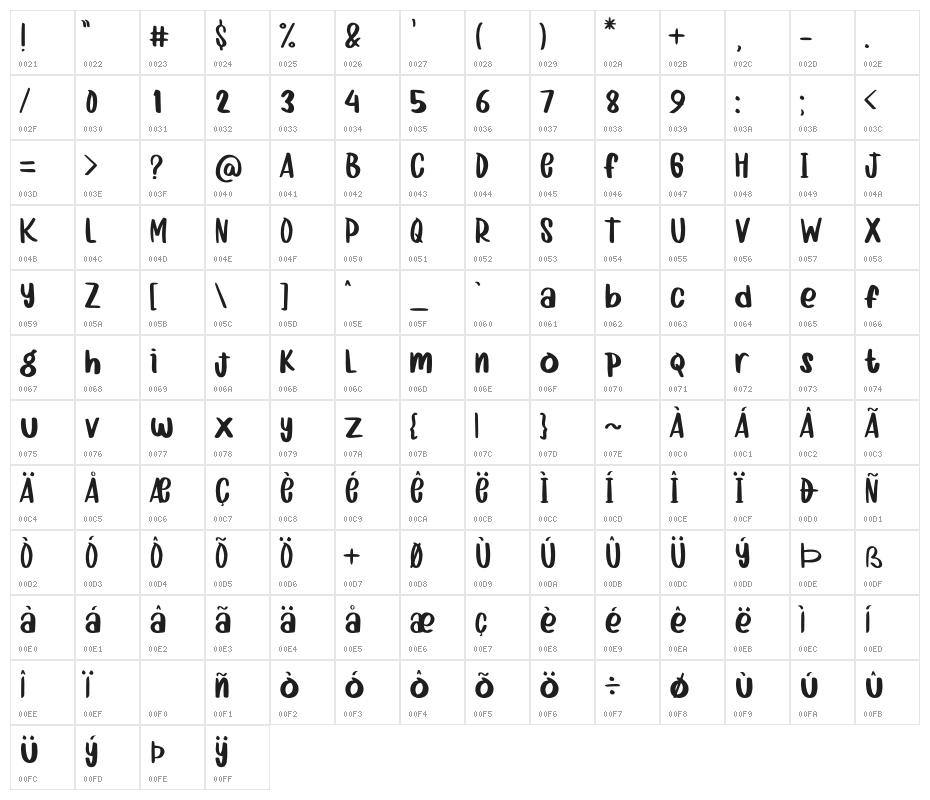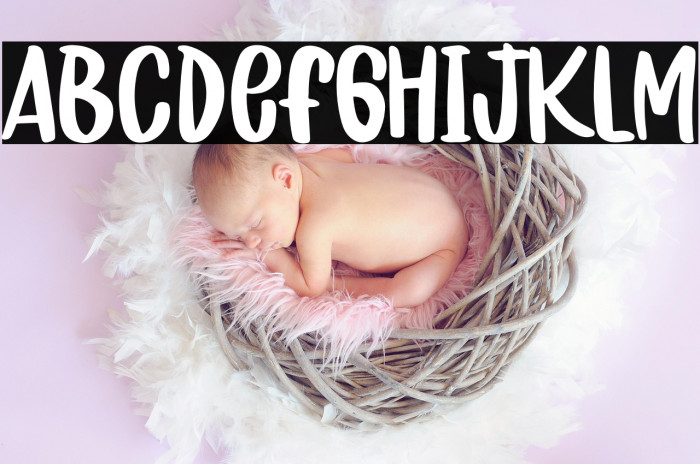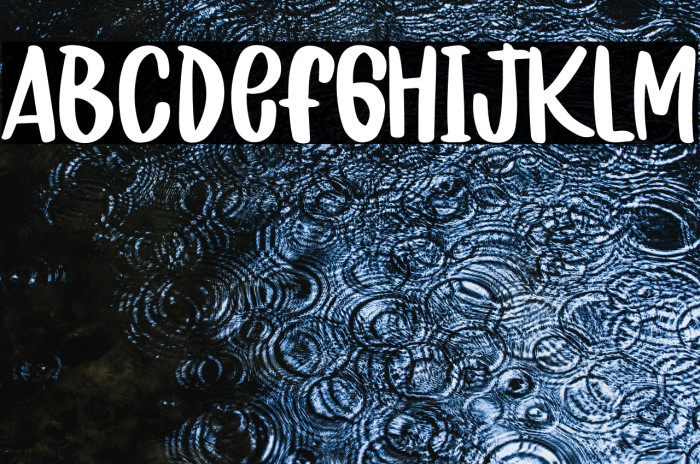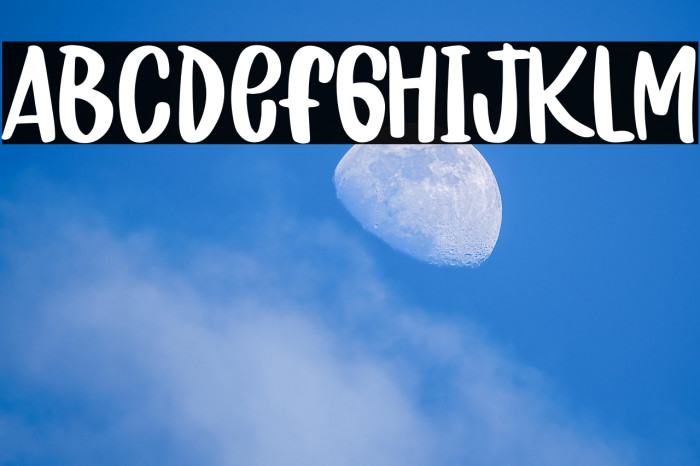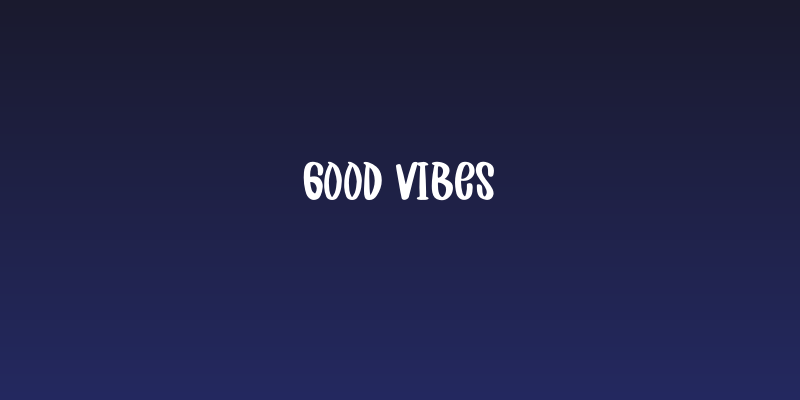
Good Vibes Font
Good Vibes Description
This playful and energetic font features a bold, handwritten style with a lively and friendly appearance. The letters are rounded and slightly irregular, giving it a casual and approachable feel. The uppercase and lowercase letters maintain a consistent style, with a slight slant that adds to its dynamic nature. The numbers and special characters are equally bold and expressive, making them stand out in any design. This font is perfect for projects that require a fun and informal touch, such as children's books, party invitations, or playful branding.
Overall StylePlayful
Use CaseHeadlines, Logos, Invitations
Proposed ProjectsIdeal for children's books, party invitations, playful branding, and casual social media graphics.